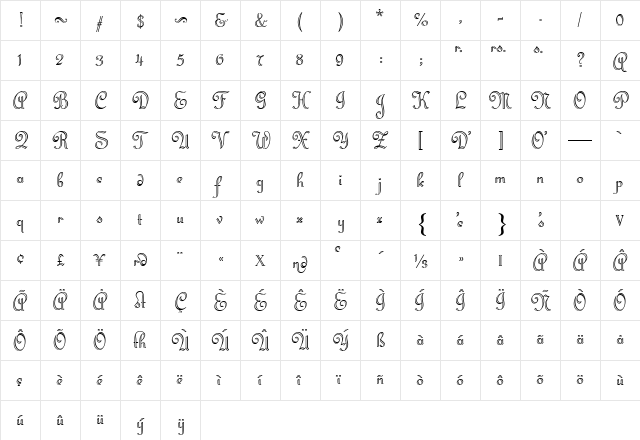
Riviera Script At Regular
Design Context for Riviera Script At Typeface
Riviera Script At flows with the natural rhythm of handwritten lettering, making it ideal for designs that call for warmth and personal expression.
Font Pairing: Combine Riviera Script At with a simple geometric sans for maximum contrast — the tension between flowing curves and clean structure is a classic typographic pairing.
Pro Tip: Use Riviera Script At for short runs of text — names, titles, or taglines. Extended body copy in script faces tires the eye quickly.